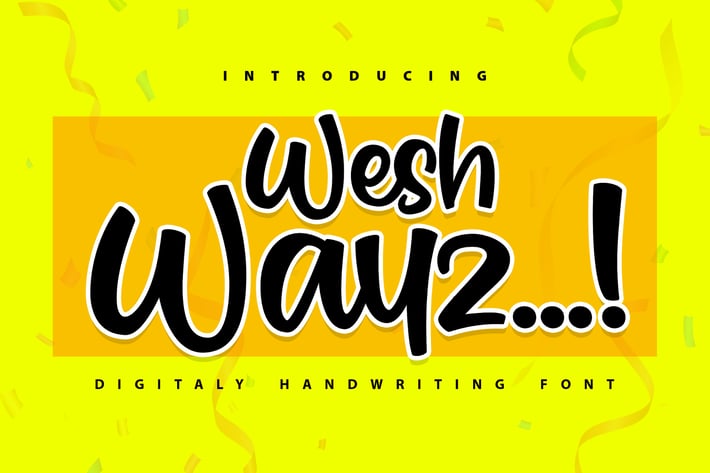
Weshwayz | Digitaly Handwriting Font
Weshwayz | Digitaly Handwriting Font with a calligraphy style, So beautiful on invitation like greeting cards, branding materials, business cards, quotes, posters, and more!